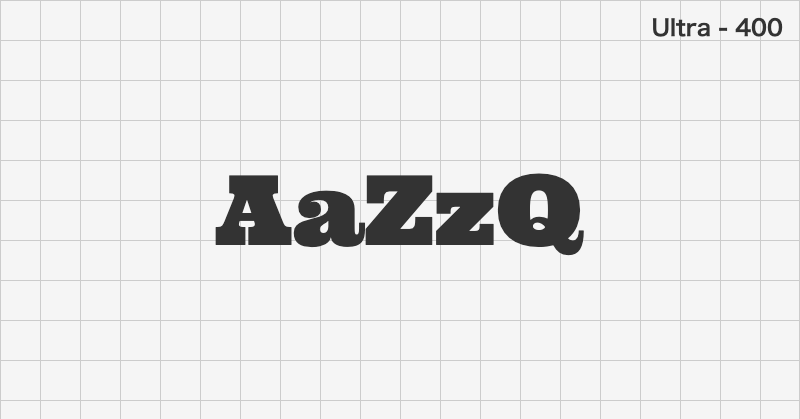
Ultra – Serif Fonts Free for Commercial Use
Ultra is an ultra bold slab typeface that draws inspiration from wood type styles, particularly Clarendon and Egyptian. Its strong and dramatic letterforms are designed for impactful headlines, ensuring legibility while conveying a serious yet approachable tone.
Ultra was designed by Astigmatic with the intention of creating a typeface that excels in titling and headlines. Its bold character is crafted to make a statement, suitable for various impactful applications.